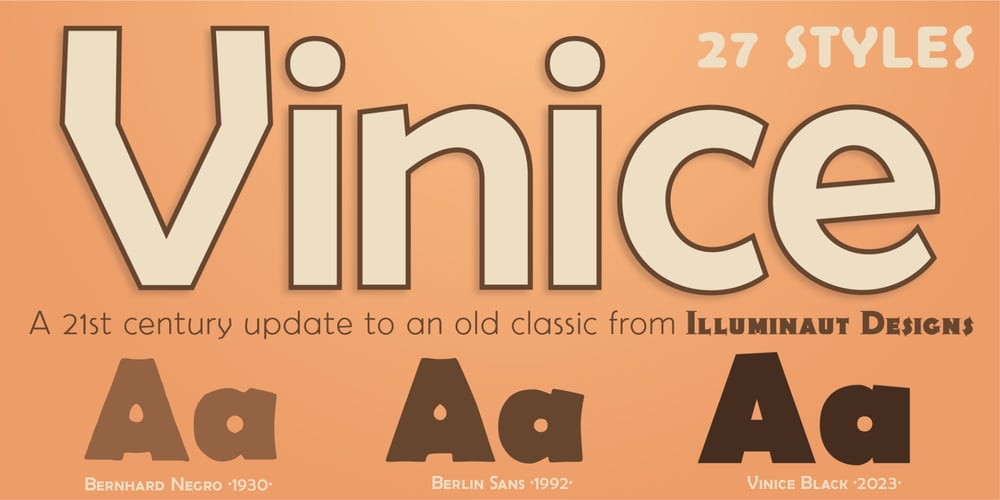
Vinice Font Family was designed by Jesse Smith and published by Illuminaut Designs. Vinice contains 27 styles and family package options. This typeface was created as a personal project. Inspired by places like Chattanooga and Berkley, I wanted to create a bespoke typeface family for the US Virgin Islands. I noticed that the typeface Berlin Sans was in use all over the islands, in signs, logos, even on the side of police cars. So I built this typeface from the ground up with the goal of updating an old tried-and-true font into a family with versatile potential.